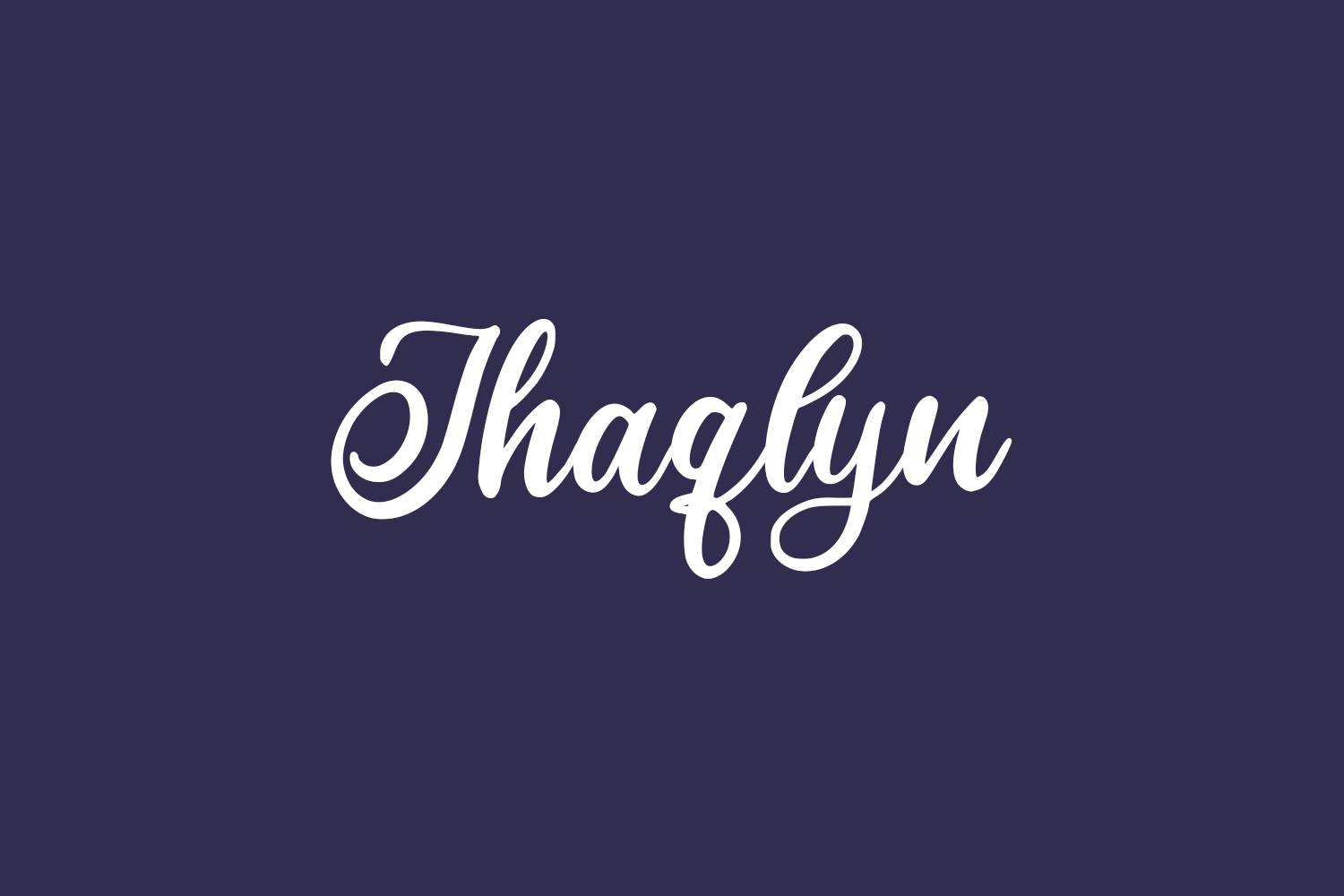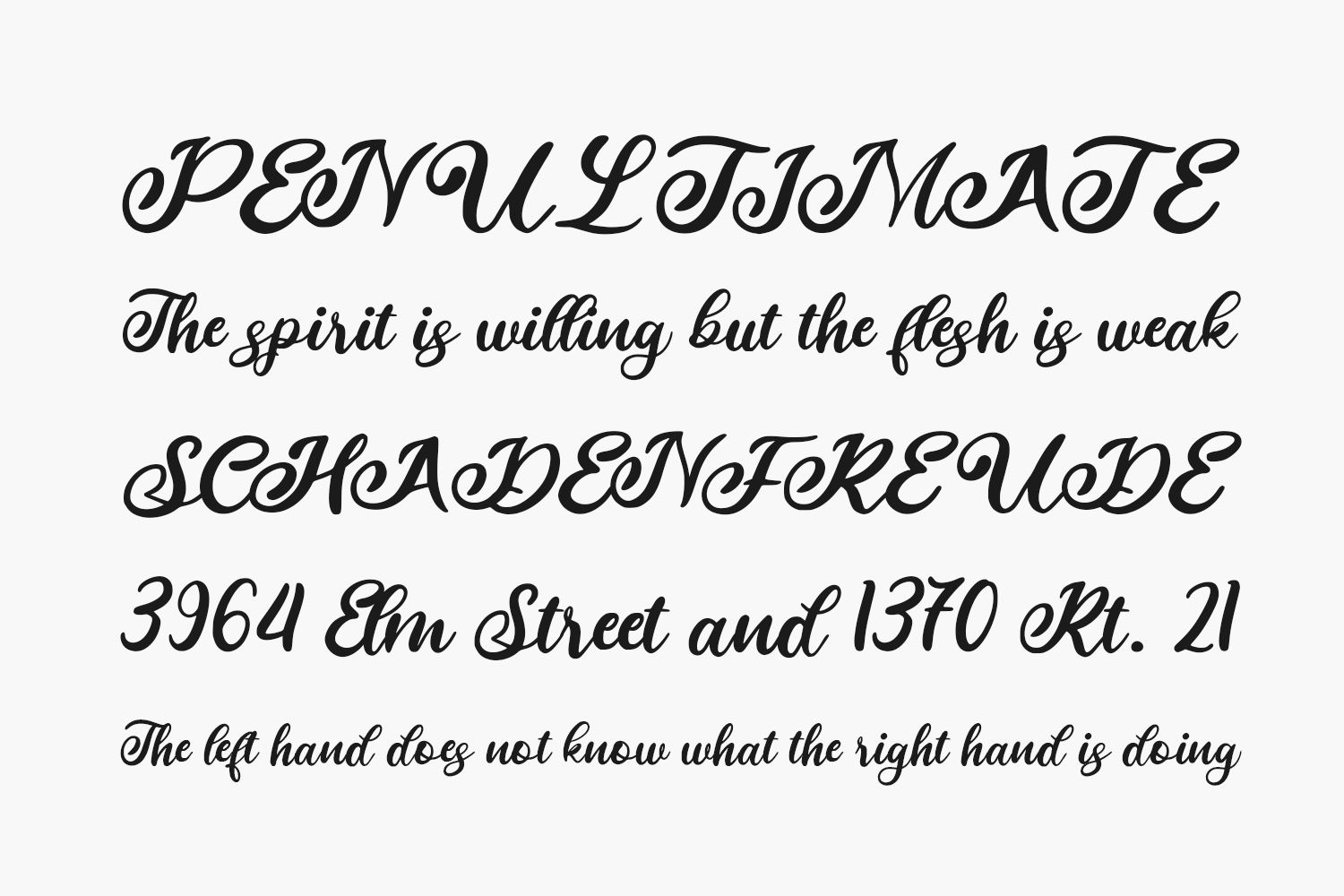
Jhaqlyn Free Font is a fun and cool handwritten font with a fancy look. Use it to add an elegant feel to any creative idea. Jhaqlyn Free Font was designed by Creatype Studio and is free for personal use only. Please purchase the full version for commercial use.
Designed by Creatype Studio